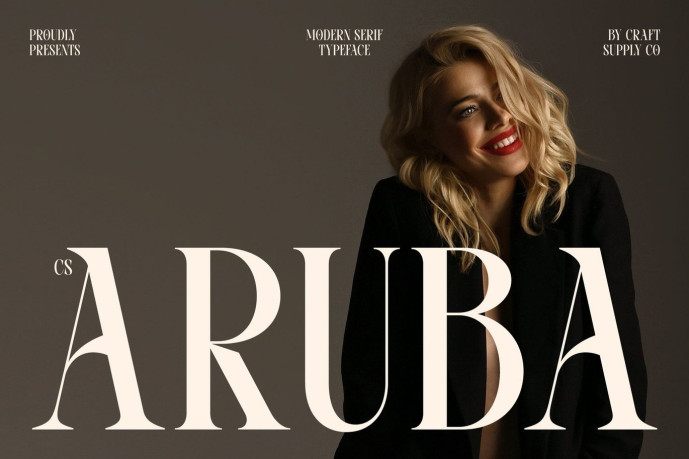
Aruba – Modern Serif Font
CS Aruba – Modern Serif Font: Where Bold Contrast Meets Refined Luxury Bold Presence with Graceful Long Serifs This is a modern serif font that combines bold, confident letterforms with beautiful stroke contrast and graceful long serifs. Its clean, contemporary structure creates a refined visual identity that feels elegant, luxurious, and timeless. Every character is carefully crafted to balance strength with sophistication, resulting in typography that is both expressive and highly polished.
Contemporary Design with Timeless Appeal This font offers a sophisticated interpretation of luxury typography. The striking contrast between thick and thin strokes adds visual richness, while its elongated serifs introduce a sense of grace and refinement. This harmonious combination creates a font that feels premium, stylish, and effortlessly distinctive.
Refined Character with Lasting Impact This font communicates confidence and exclusivity through its balanced proportions and elegant detailing. Its bold structure ensures excellent visibility for display use, while its clean design maintains clarity and professionalism. Whether featured in headlines, branding, or editorial layouts, the font delivers a memorable and upscale visual experience.
Perfect for Luxury Brands and High-End Design Perfect for luxury brand identities, fashion and beauty branding, premium packaging, editorial layouts, magazine covers, hotel and hospitality branding, invitations, product labels, logos, and other high-end design projects. Its elegant serif forms make it ideal for typography that seeks to communicate prestige, refinement, and timeless sophistication.